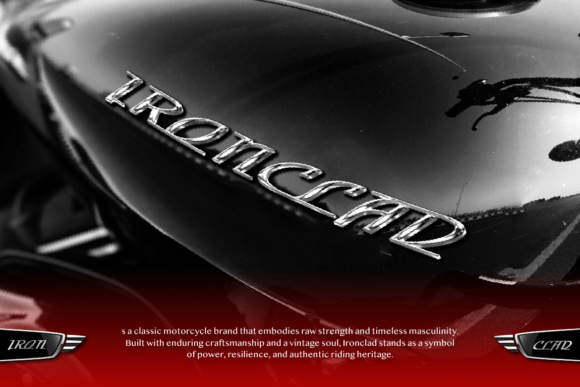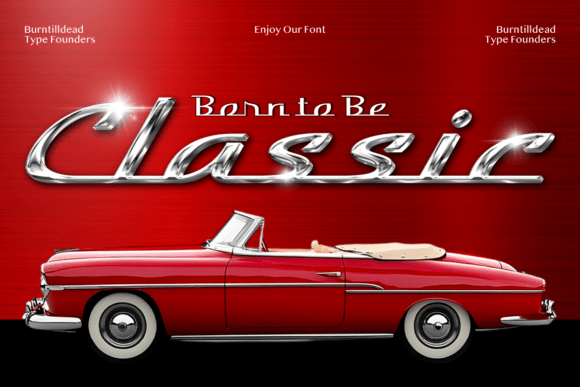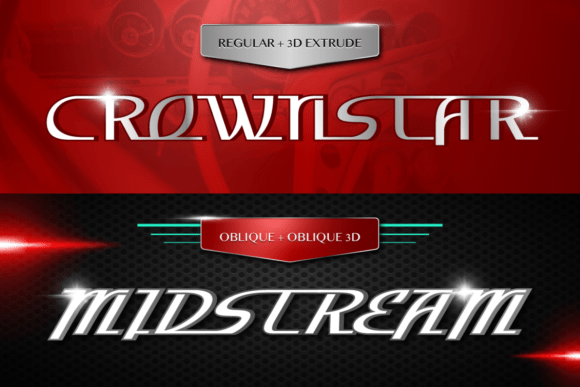
Introduction to Macartee Font
As a designer, there’s nothing quite like the thrill of the creative process – the moment when a blank canvas turns into a vibrant work of art. For many of us, that spark of inspiration often comes from the world of design, where the lines between art and functionality blur. For me, that moment came when I stumbled upon the Macartee Font, a bold vintage typeface that instantly transported me back to the golden era of automotive design.
What makes Macartee Font truly special is its unique blend of classic style and modern edge, making it an invaluable design resource for creatives. With its sleek lines, smooth curves, and retro flair, this font is perfect for logos, posters, badges, and any project that needs a dash of speed and retro energy.
Key Features of Macartee Font
- High-quality design resource ideal for creative projects, offering a unique and stylish aesthetic.
- Unique characteristics include elegant script and modern flair, making it perfect for branding, typography, and editorial projects.
Honest Review: Macartee Font
I recently had the chance to experiment with the Macartee Font, and I must say it’s a solid addition to any designer’s toolkit. This high-quality design resource is perfect for creative projects where you want to add a touch of elegance and sophistication.
- ✨ Elegant and refined design aesthetic, making it suitable for a wide range of applications
- ⚠️ Limited character set, which may not be ideal for projects requiring extensive text
Overall, I’m impressed with the Macartee Font’s high quality and versatility. While it may not be suitable for every design project, it’s a great option for those seeking a sophisticated and elegant aesthetic.
To get the most out of the Macartee Font, use it in combination with other design elements to create a cohesive and visually appealing design. You can also experiment with different font sizes, colors, and styles to create a unique look.
The Macartee Font is perfect for various creative projects, including logos, brochures, business cards, and social media graphics. Its transparent background makes it ideal for use on images and backgrounds with subtle textures and patterns.